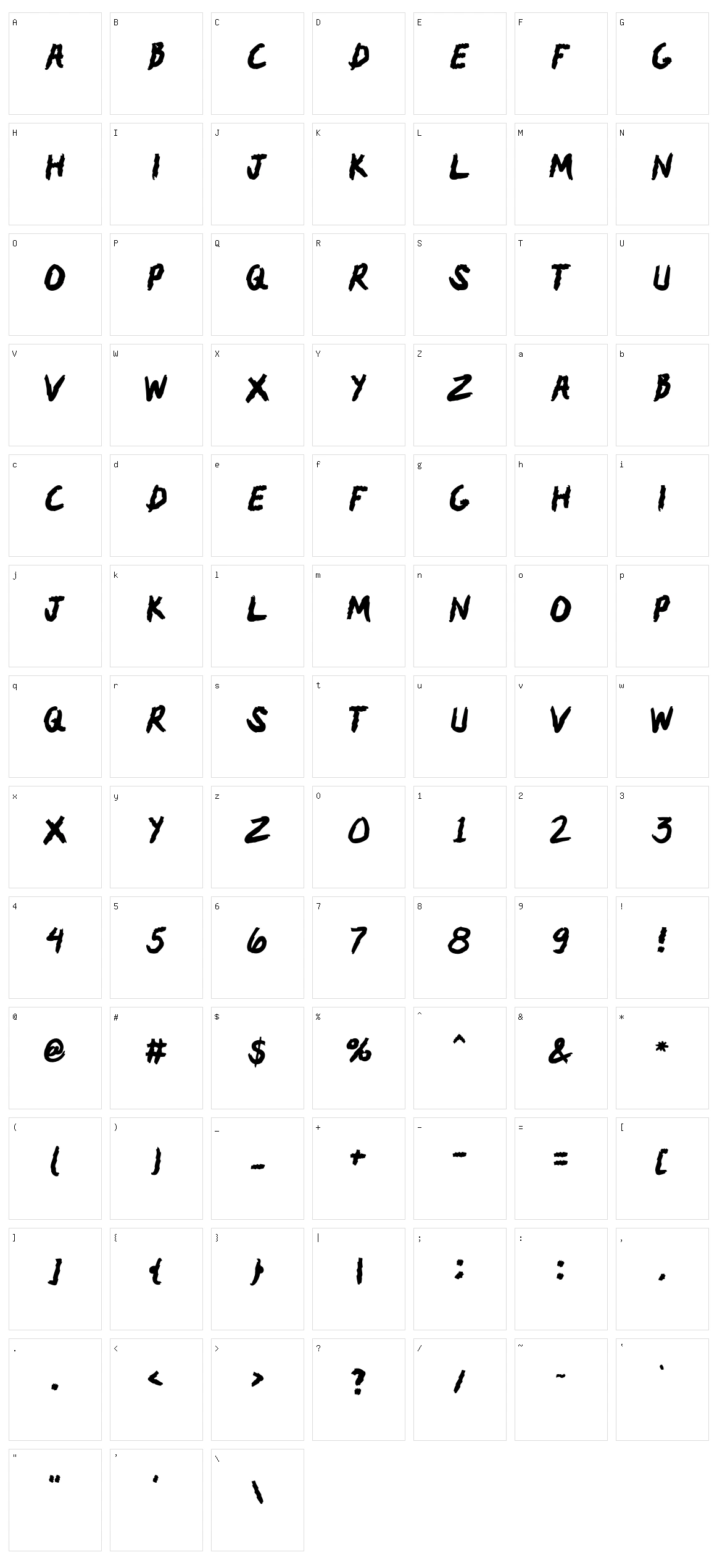
The free font Dragos is carefully designed by Angelo Aman, showcasing a thoughtful balance of creativity and usability and falls under the Script font style. When you download the ZIP file, it contains only 1114.45 KB of font files, making it lightweight and quick to download. Please review the license details below to understand permitted usage and distribution rights. If license information is not available, we recommend using this font for personal projects only or contacting the author directly for commercial usage permissions.